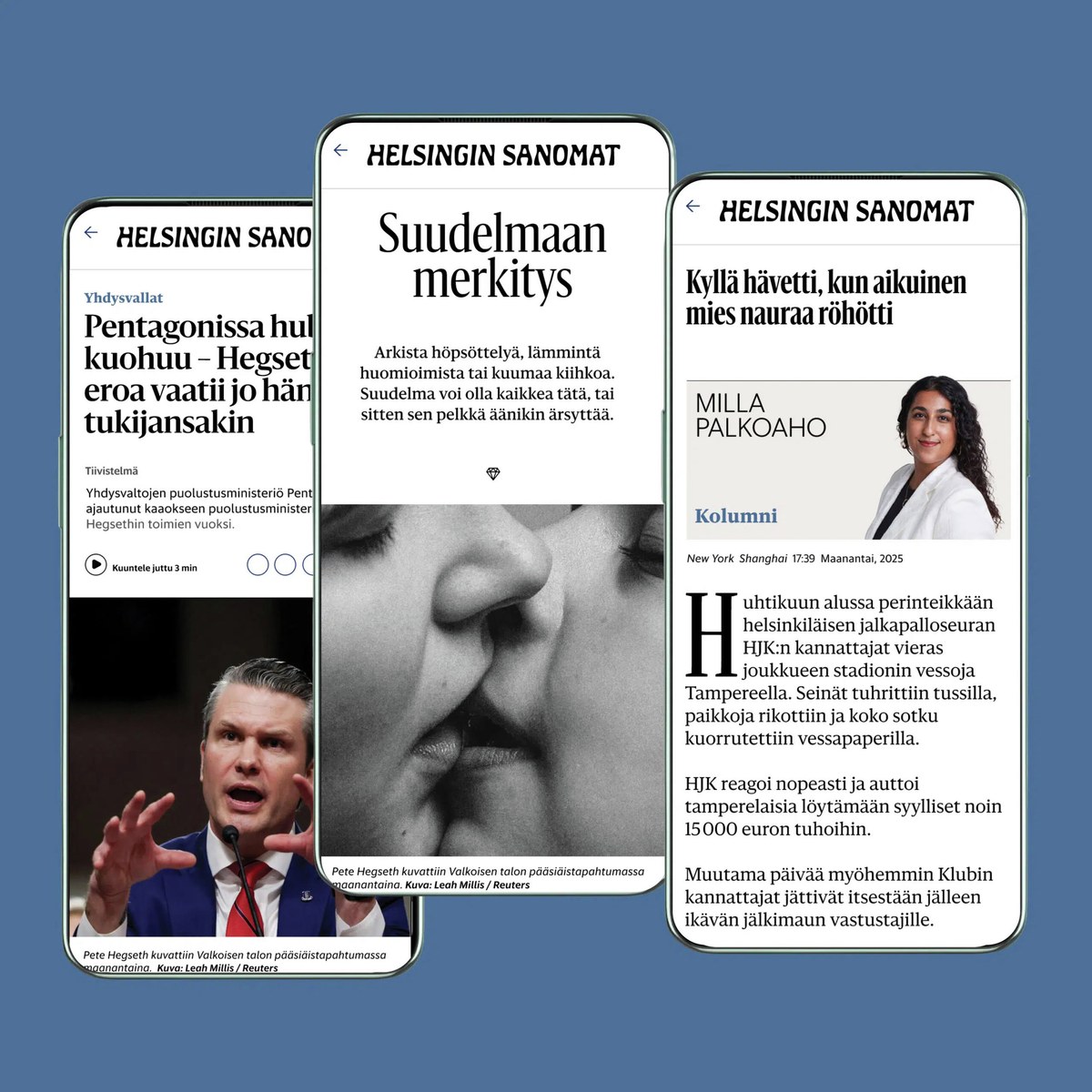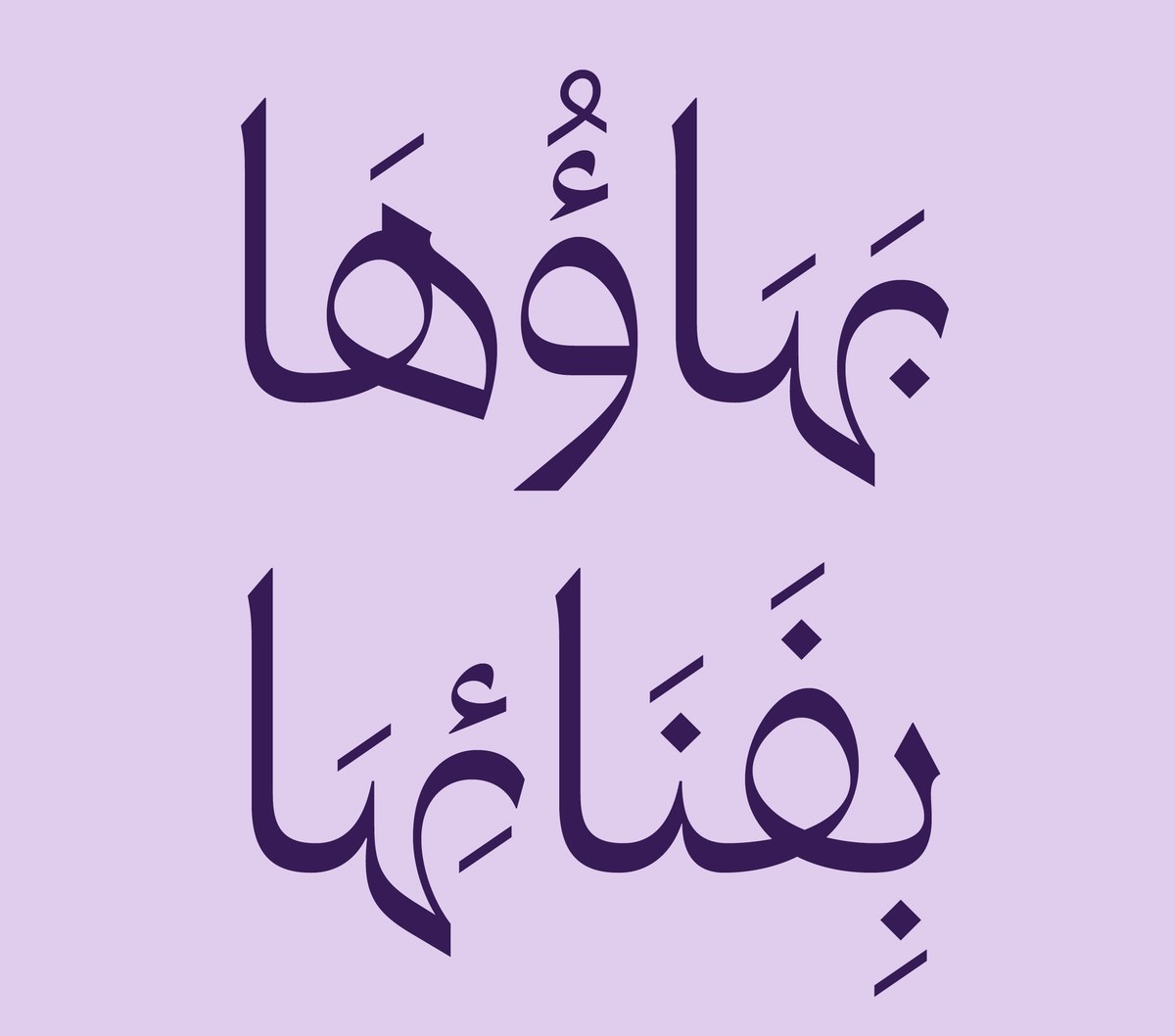
Khajag Apelian and Wael Morcos have adapted Canela’s graceful forms to Arabic.
Paul Barnes has designed a variable version of the gently flared, quasi-inscriptional Sanomat as part of a digital overhaul of Helsingen Sanomat, art-directed by Anna Thurfjell Studio.
A spiky-soft text serif from Sandrine Nugue is a playful response to one of the most iconic French typefaces of the twentieth century.